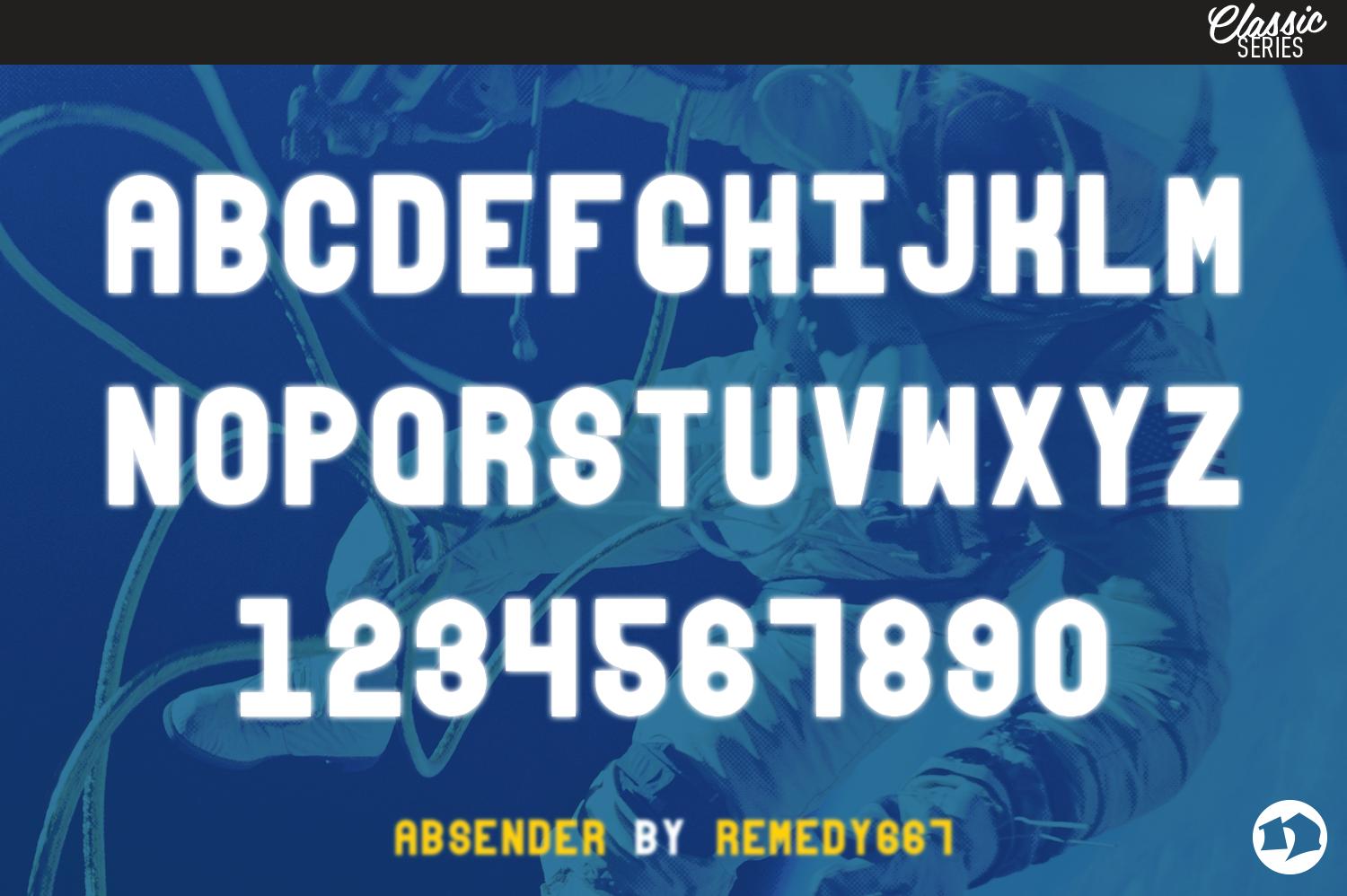
Absender Font Description
Absender is inspired by the retro space-age nostalgia of the 1990’s that was inspired by the retro space-age nostalgia of the 1950’s. This chunky, mono-spaced display font looks just as good on your merchandise as it would on the side of a rocket. The simplistic construction allows this bold display face the versatility to be used in a wide range of project types.
Designed for headlines, titling and pretty much anything you can imagine. The possibilities are limitless!